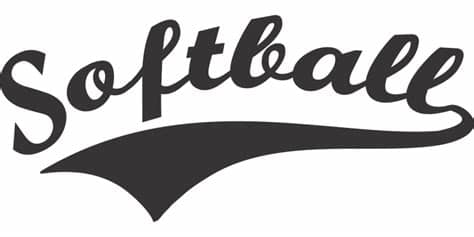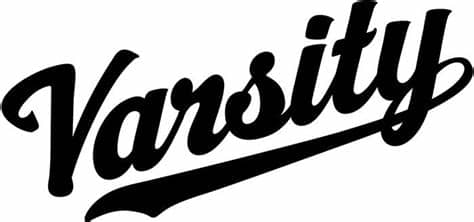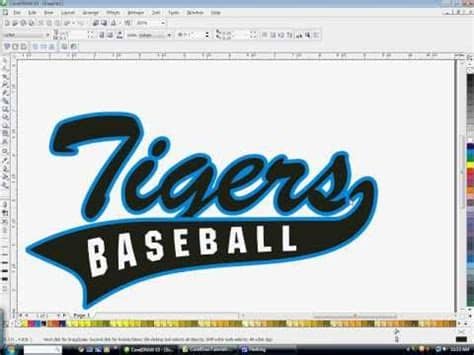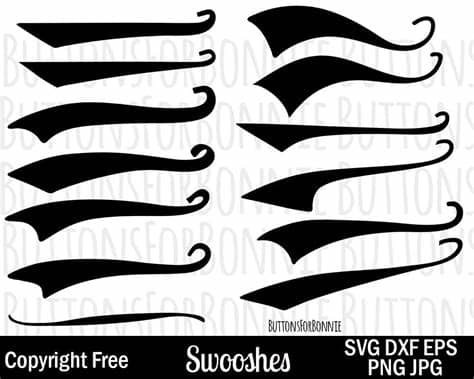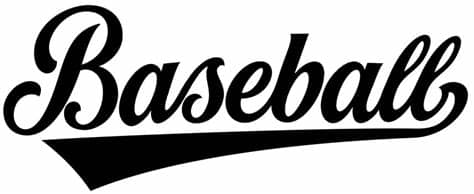
Athletic Script Font With Tail / Free Sports Script Font With Tails - Cheat sheets for easy glyph fonts with tails.. Athletic tails and swooshes, svg, text tail, swoosh, swash, sports teams, baseball tail, dxf, pdf, cut files, vector art. Homestead is a vintage athletic script font inspired by negro league baseball jerseys. On this page you can download athletic script truetype font (here). The font is classified as regular fonts. Athletic script, athletic supporter, athletic regular, athletic town v0.1, athletic for windows and.
I know this sounds strange but i'm creating patterns for a scroll saw and having the words connected together would help.
The font is usually brush script with a custom tail added. I know this sounds strange but i'm creating patterns for a scroll saw and having the words connected together would help. Share athletic script font with your. Athletic script font viewed 2716 times and downloaded 432 times. I just drew a tail that i keep around.
I need to be able to make local sports teams logos and need all the fonts i can get to help. This page is about athletic script font with tail,contains typographic swash and swooshes tails retro swishes and swashes for athletic typography logos.,sports tail embroidery fonts,sporty swirling tail football and baseball typography swashes swirled plume curly tails for. Red chili with green tail. This font uploaded 17 november 2012. Stranger with a tail clip art.
Homestead is a vintage athletic script font inspired by negro league baseball jerseys. This font uploaded 17 november 2012. The font is classified as regular fonts. Free fonts often have not all characters and signs, and have no kerning pairs (avenue ↔ a venue, tea ↔ t ea). Athletic, script, swash tail fonts. You can also downloads other fonts: If you want to create professional printout, you should consider a commercial font. Click on the next picture to preview this font with another text
Does anyone have any fonts with athletic tails or is there a athletic fonts maker program out there anywhere.?
There are 374 font with tails for sale on etsy, and they cost $4.12 on. 50 professional athletic script with tail fonts to download please note: Classics (baskerville, futura, garamond) alongside hot new fonts (futura now, resolve sans,larken). This page is about athletic script font with tail,contains typographic swash and swooshes tails retro swishes and swashes for athletic typography logos.,sports tail embroidery fonts,sporty swirling tail football and baseball typography swashes swirled plume curly tails for. I add it to whatever font i'm using at the time. Athletic tails and swooshes, svg, text tail, swoosh, swash, sports teams, baseball tail, dxf, pdf, cut files, vector art. Old sport athletic by the fontry. The font is usually brush script with a custom tail added. We have 1 free athletic, script, swash tail fonts to offer for direct downloading · 1001 fonts is your favorite site for free fonts since 2001. Free fonts often have not all characters and signs, and have no kerning pairs (avenue ↔ a venue, tea ↔ t ea). Only fonts with accents euro. Please enter your email address receive a free font daily from fonts101.com in your email! 62 matching requests on the forum.